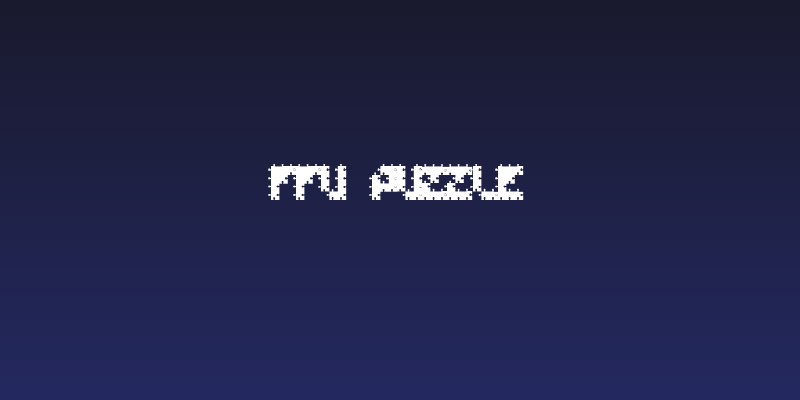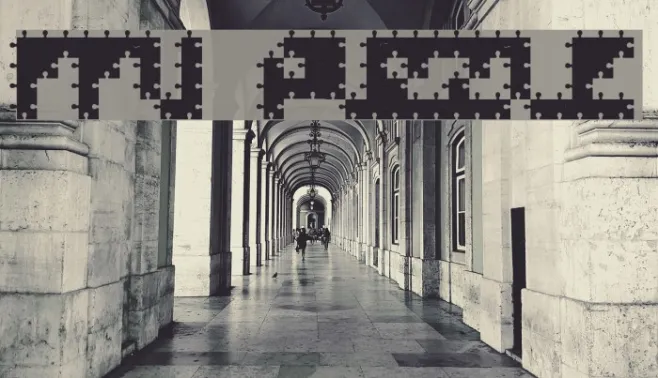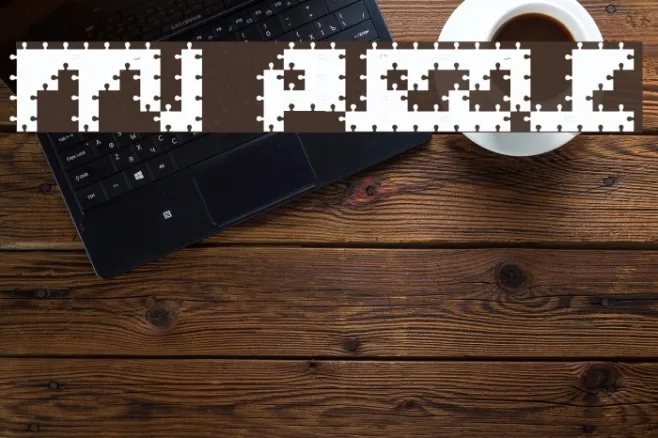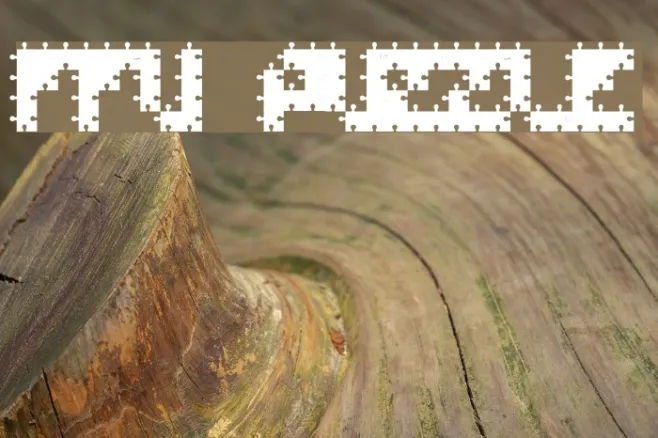
FFU Puzzle Font
FFU Puzzle Description
This font features a unique and playful design, reminiscent of puzzle pieces fitting together. Each character is constructed with a blocky, geometric style, giving it a distinctive and eye-catching appearance. The edges of the letters are not smooth but rather jagged, mimicking the interlocking nature of puzzle pieces. This creates a sense of movement and complexity, making it ideal for creative and unconventional projects. The font maintains a consistent weight throughout, ensuring readability despite its intricate design. It is particularly suitable for headlines or display purposes where a bold statement is desired.
| Overall Style | Playful, Creative |
| Proposed Projects | Ideal for children's books, educational materials, creative posters, and playful branding. |